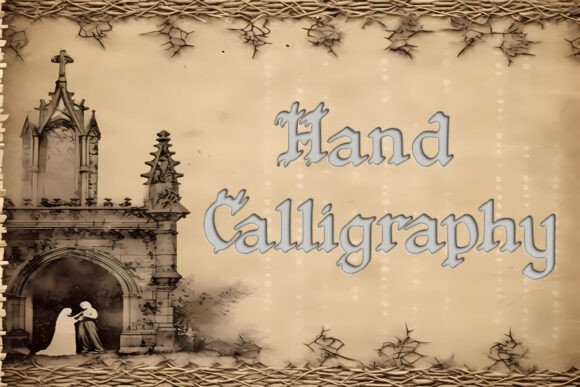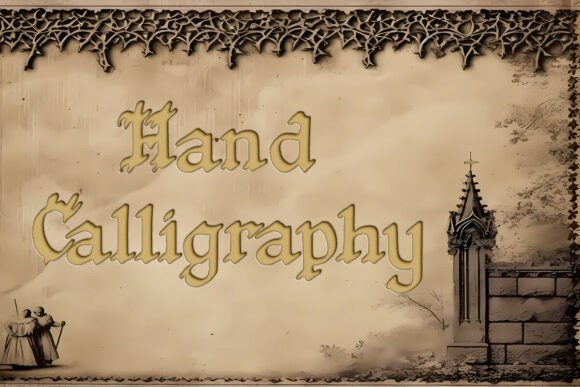
Welcome to the Beautiful World of Hand Calligraphy Font
Imagine a world where typography is not just about conveying a message, but also about adding a touch of elegance and sophistication to your designs. Welcome to the beautiful world of Hand Calligraphy Font, a typography masterpiece that melds elegance with functionality. This versatile design toolkit transcends boundaries, making it perfect for a wide range of applications, from enhancing the allure of shirts and stickers to lending a distinguished charm to branding initiatives and magazine layouts.
What is Hand Calligraphy Font?
Hand Calligraphy Font is more than just a font – it’s a comprehensive design toolkit that offers a unique blend of traditional calligraphy and modern typography. With its intricate and flowing lines, this font is perfect for adding a touch of sophistication to your designs. Whether you’re a designer, crafter, or simply someone who appreciates beautiful typography, Hand Calligraphy Font is a must-have in your design arsenal.
One of the standout features of Hand Calligraphy Font is its versatility. This font can be used in a wide range of applications, from:
- Shirts and stickers: Add a touch of elegance to your apparel and accessories with Hand Calligraphy Font.
- Branding initiatives: Lend a distinguished charm to your brand’s logo, packaging, and marketing materials.
- Magazine layouts: Add a touch of sophistication to your magazine layouts and make your content stand out.
- Greeting cards: Create visually delightful greeting cards with Hand Calligraphy Font and SVG files.
- Cricut projects: Make your Cricut projects a masterpiece with the elegant and flowing lines of Hand Calligraphy Font.
- Poster designs: Create stunning poster designs that grab attention and leave a lasting impression.
- Social media: Spruce up your social media presence with a touch of sophistication and elegance.
Seamless Integration with SVG Files
Hand Calligraphy Font flawlessly integrates with SVG files, making it perfect for Cricut projects, greeting cards, and other applications where vector graphics are used. With this font, you can create visually delightful designs that are sure to impress.
Adding a Touch of Sophistication to Your Designs
Hand Calligraphy Font becomes particularly enchanting when employed in poster designs or for sprucing up your social media presence. With its intricate and flowing lines, this font adds a touch of sophistication and elegance to your designs, making them stand out from the crowd.
Experience the Magic of Hand Calligraphy Font
Experience the magic, versatility, and limitless potential of Hand Calligraphy Font. Whether you’re a designer, crafter, or simply someone who appreciates beautiful typography, this font is sure to inspire you to create stunning designs that leave a lasting impression.
Tips and Tricks for Using Hand Calligraphy Font
Here are some tips and tricks for getting the most out of Hand Calligraphy Font:
- Use Hand Calligraphy Font in combination with other fonts to create a unique and visually appealing typography.
- Don’t be afraid to get creative and try out new and innovative ways to use Hand Calligraphy Font.
In conclusion, Hand Calligraphy Font is a versatile design toolkit that offers a unique blend of traditional calligraphy and modern typography. With its intricate and flowing lines, this font is perfect for adding a touch of sophistication and elegance to your designs. Whether you’re a designer, crafter, or simply someone who appreciates beautiful typography, Hand Calligraphy Font is a must-have in your design arsenal. So why wait? Experience the magic, versatility, and limitless potential of Hand Calligraphy Font today!